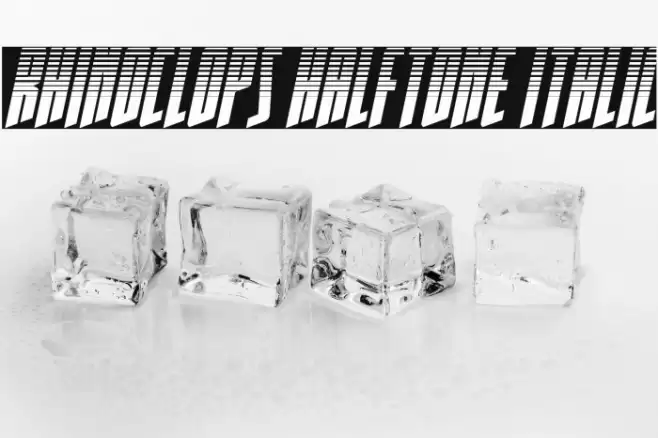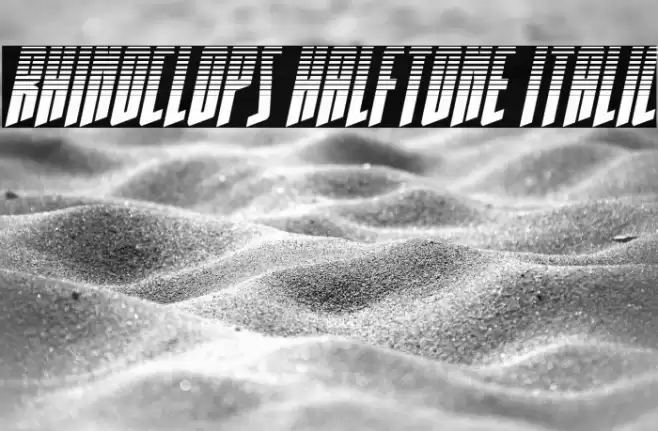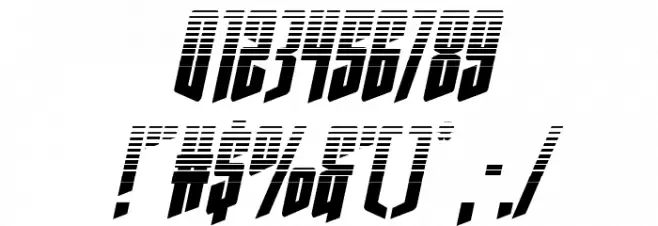
Rhinoclops Halftone Italic Font
Rhinoclops Halftone Italic Description
This font features a bold, italicized style with a distinctive halftone effect, creating a dynamic and eye-catching appearance. The characters are designed with a strong slant, enhancing the sense of motion and energy. The halftone pattern adds a unique texture, giving the font a modern and edgy look. The uppercase and lowercase letters maintain a consistent style, with sharp angles and clean lines. Numbers and special characters are equally bold and stylized, making them suitable for impactful designs. The overall design is both decorative and functional, ideal for projects that require a strong visual statement.
A bold, italicized font with a halftone effect, offering a dynamic and modern look from Uncategorized fonts.
- Proposed Projects: Ideal for posters, branding, sports team logos, and any design needing a bold, energetic typeface.